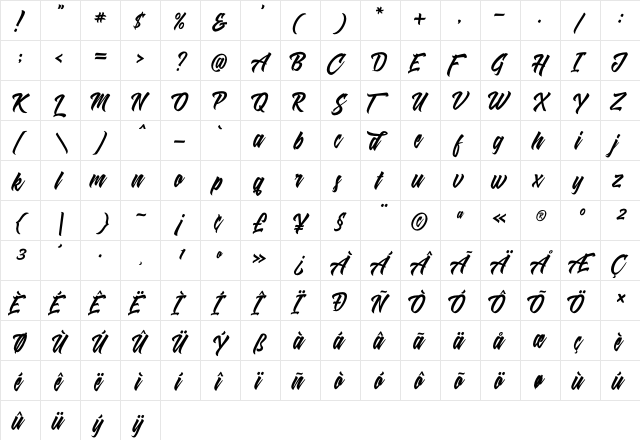
Shanders Free Regular
| Foundry | Dirtyline Studio |
| Designer | Hendra Maulia |
Design Context for Shanders Free Typeface
Shanders Free brings a calligraphic fluidity to the page — its connecting strokes and expressive curves give it an unmistakably human quality.
Font Pairing: Combine Shanders Free with a simple geometric sans for maximum contrast — the tension between flowing curves and clean structure is a classic typographic pairing.